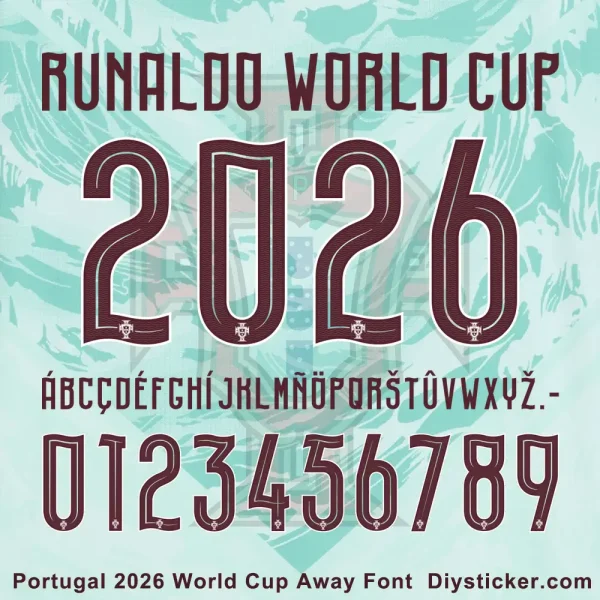
Portugal 2026 World Cup Away Font Download
Get your hands on the Portugal 2026 World Cup Away Font, a must-have for designers, fans, and content creators. This exclusive typeface captures the bold, modern look of Portugal’s national team identity for the 2026 World Cup.
Whether you’re creating custom football shirts, digital artwork, social media graphics, or fan merchandise, this font delivers clean lines and a striking aesthetic. The download includes a complete set of uppercase and lowercase characters, numbers, and special symbols featured in the official away kit design.